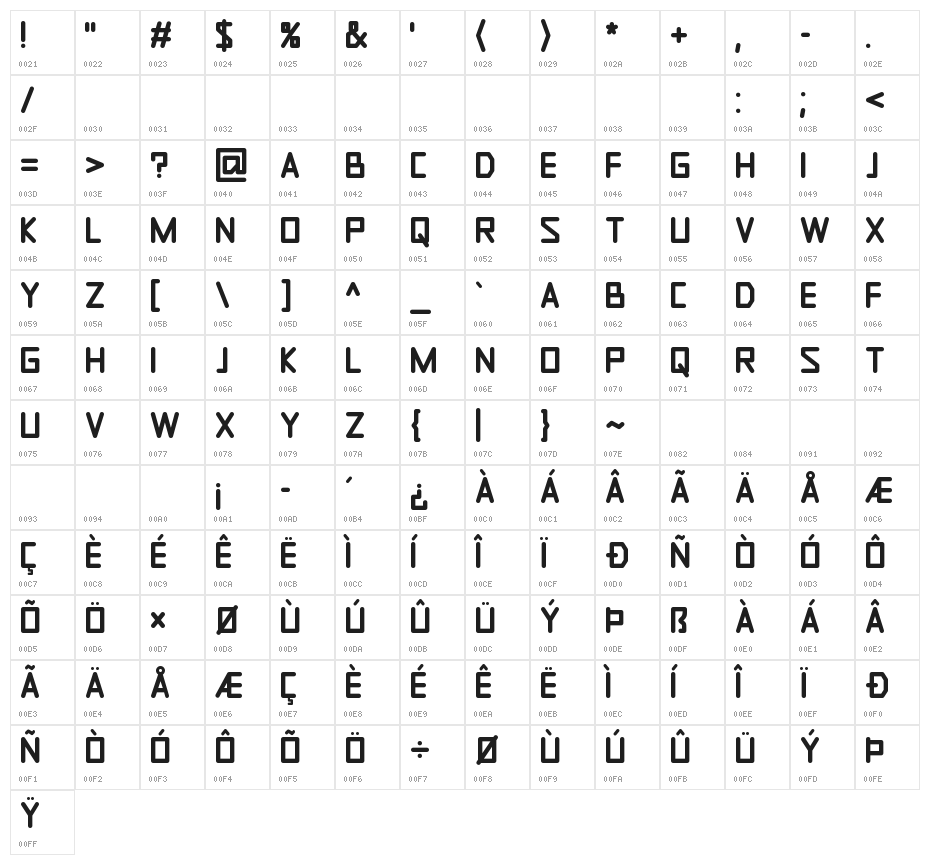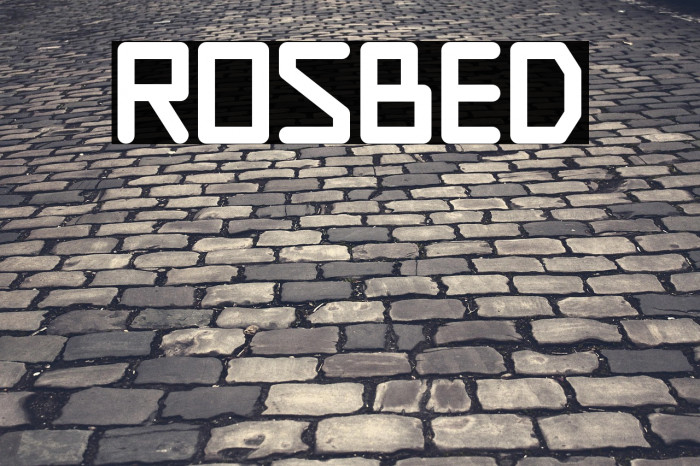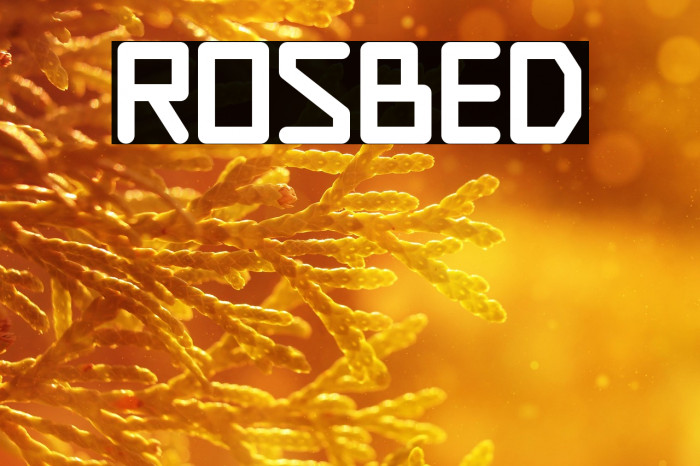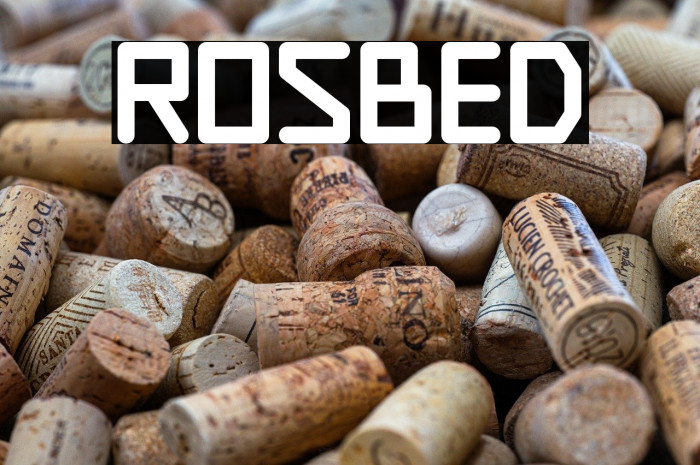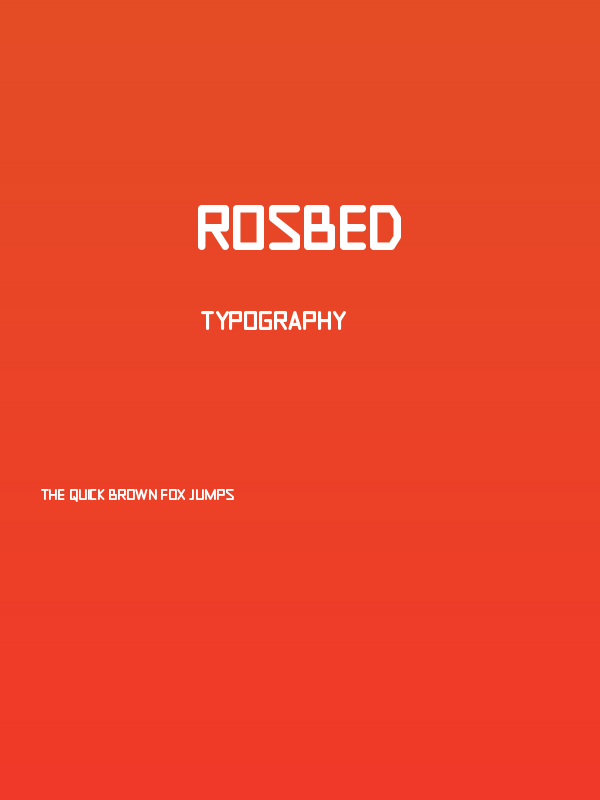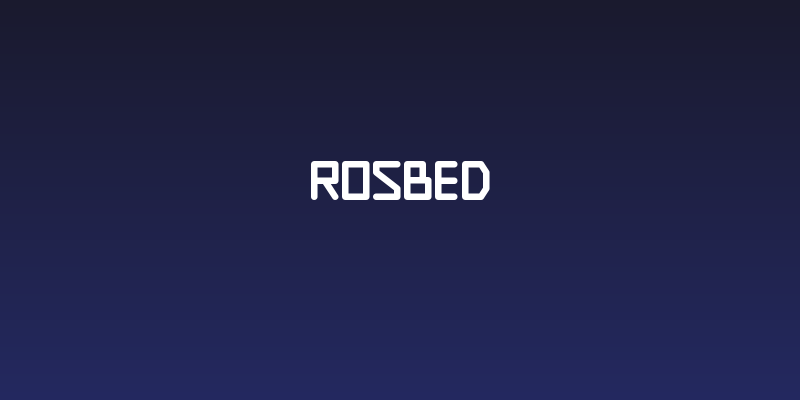
Rosbed Font
Rosbed Description
This font features a bold, geometric design with rounded edges, creating a modern and approachable appearance. The uppercase letters are uniform in height, with consistent line thickness that gives a clean and structured look. The characters are slightly condensed, enhancing readability while maintaining a compact form. The special characters, such as punctuation marks and symbols, are designed to match the overall style, ensuring visual harmony across all elements. The font's simplicity and clarity make it versatile for various design applications.
| Width | Condensed |
| Use Case | Headlines, Logos, Signage |
| Proposed Projects | Ideal for branding, signage, posters, and digital interfaces where a modern and clean aesthetic is desired. |